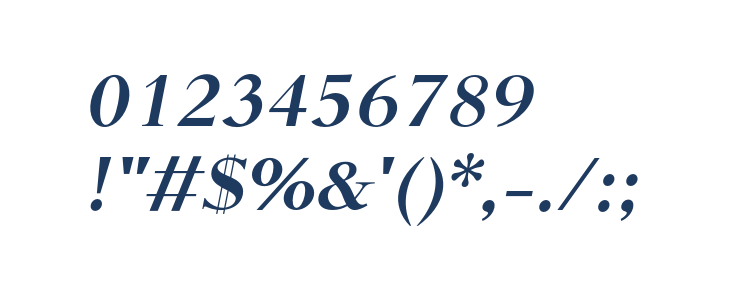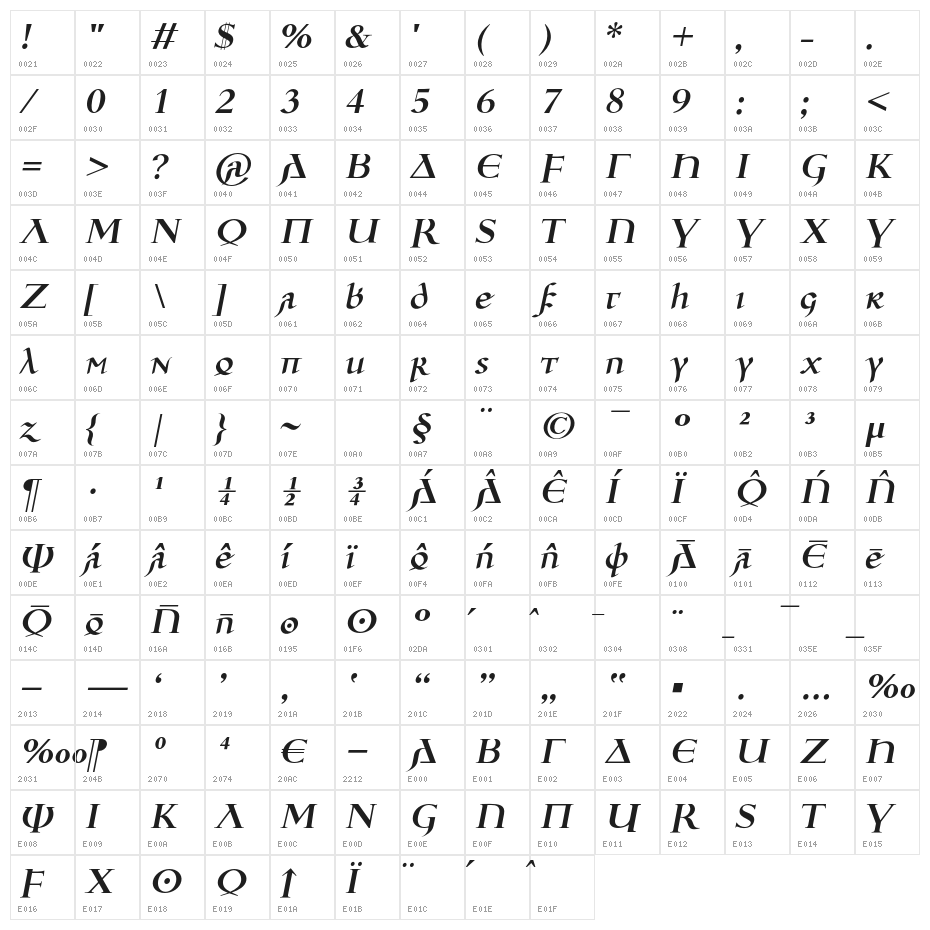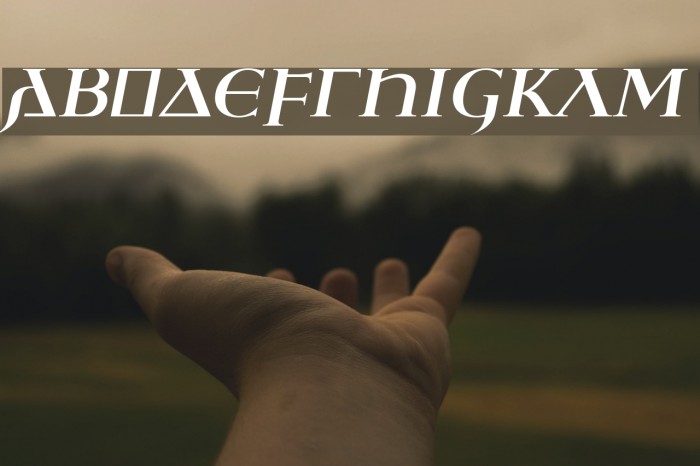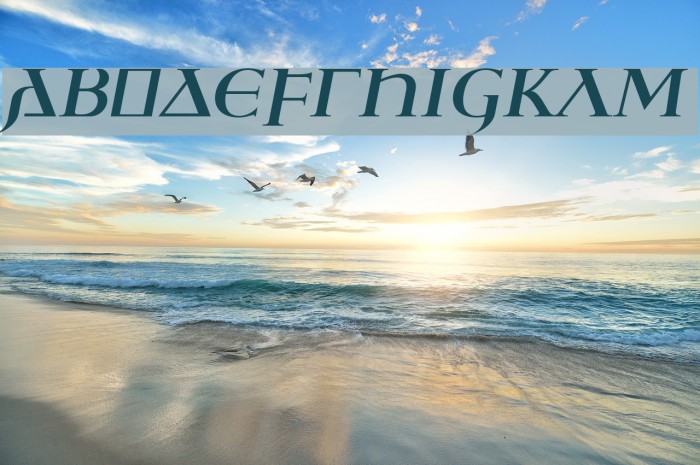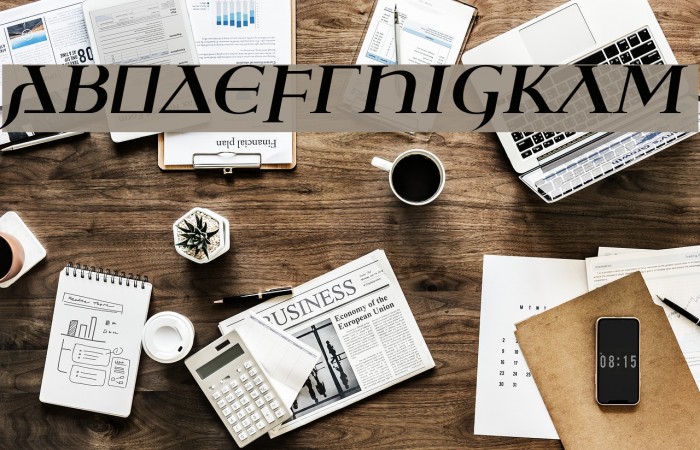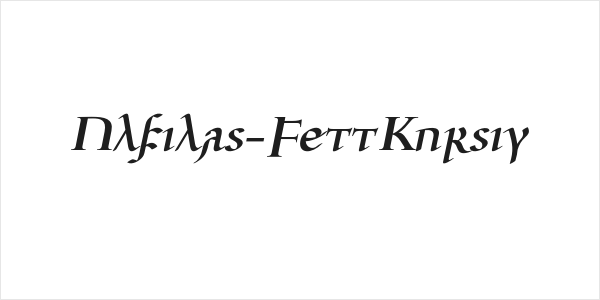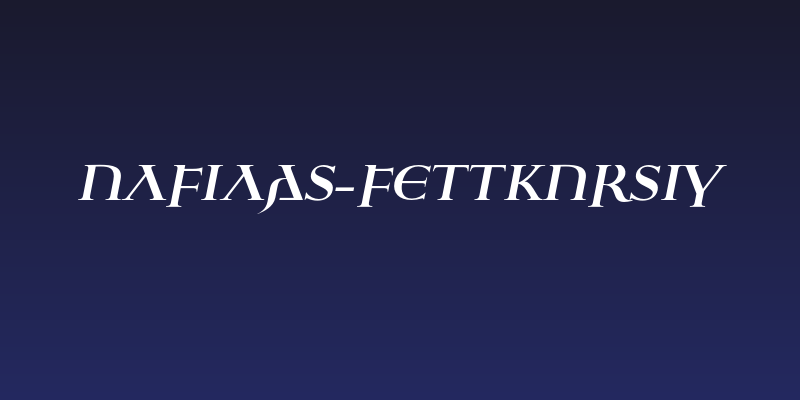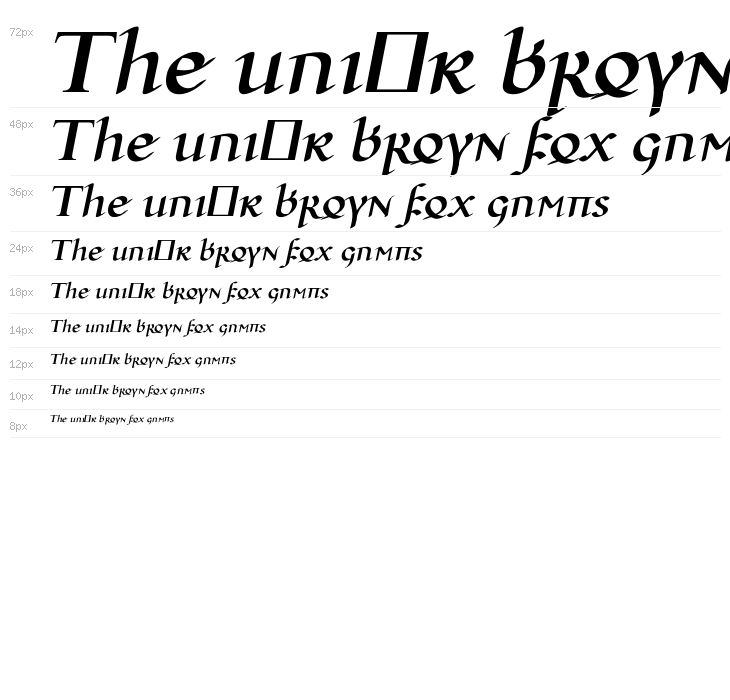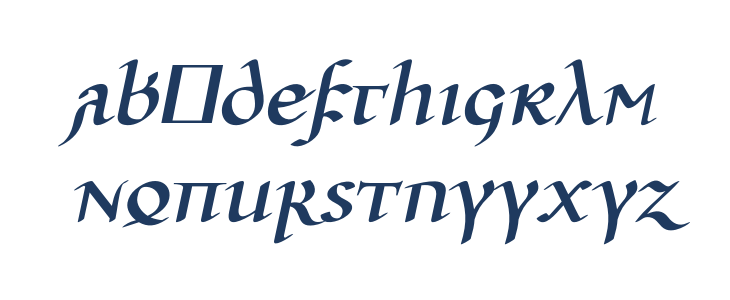
Ulfilas-FettKursiv Font
Ulfilas-FettKursiv Description
This font exhibits a unique blend of Gothic and modern styles, characterized by its sharp, angular serifs and slightly condensed letterforms. The uppercase letters are bold and commanding, with distinct diagonal strokes that give them a dynamic appearance. The lowercase letters maintain a consistent style, with some featuring elegant curves that add a touch of sophistication. The numbers are well-proportioned, matching the overall aesthetic of the alphabet. Special characters are designed to complement the letters, maintaining the same angular and bold characteristics. This font's distinct style makes it suitable for projects that require a strong visual impact.
| Overall Style | Modern Gothic |
| Proposed Projects | Ideal for branding, posters, book covers, and any design requiring a bold, impactful typeface. |